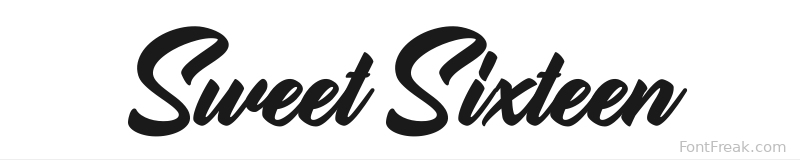
Roskrift Clean
Roskrift Clean is a charming handwritten font designed by Mans Greback, classified as a script typeface. Its unique, flowing style captures the essence of casual elegance, making it a versatile choice for various design projects. The strokes are characterized by a moderate weight, offering a balanced contrast that enhances readability while maintaining a personal touch. The spacing is thoughtfully designed to ensure each letter connects seamlessly, giving it a cohesive and fluid appearance. Decorative elements are subtly integrated, adding flair without overwhelming the overall design.
This font is particularly well-suited for a range of applications. It shines in wedding invitations, where its graceful curves can evoke romance and intimacy. Additionally, Roskrift Clean is ideal for creating eye-catching movie posters, as its dynamic style can draw attention and convey a sense of creativity. Restaurant menus benefit from its inviting appearance, making dishes appear more appealing. Content creators will find this font perfect for blog headers and social media graphics, as it adds a personable vibe to any digital presence.
The target audience for Roskrift Clean includes graphic designers seeking a unique touch for their projects, small business owners looking to enhance their branding, and content creators wanting to engage their audience with a friendly aesthetic.
What sets Roskrift Clean apart is its ability to blend artistry with functionality. Its free availability allows designers of all skill levels to incorporate this beautiful typeface into their work without any cost barriers. For those searching for a distinctive script font, the Roskrift Clean font free download offers an opportunity to elevate their designs with a personal, yet professional, touch.